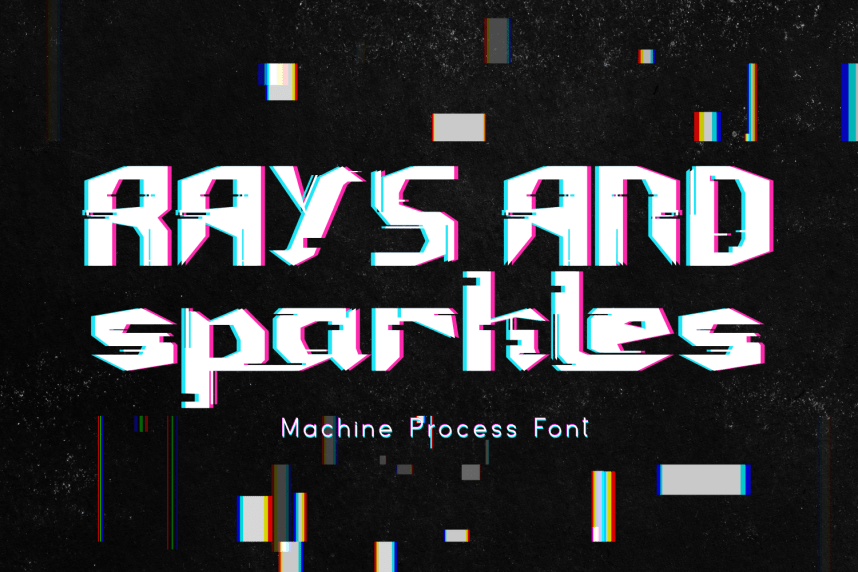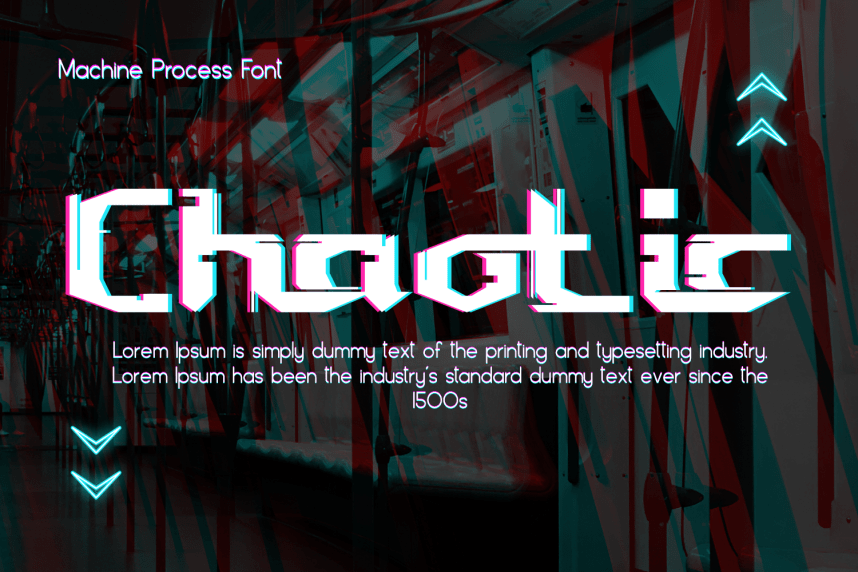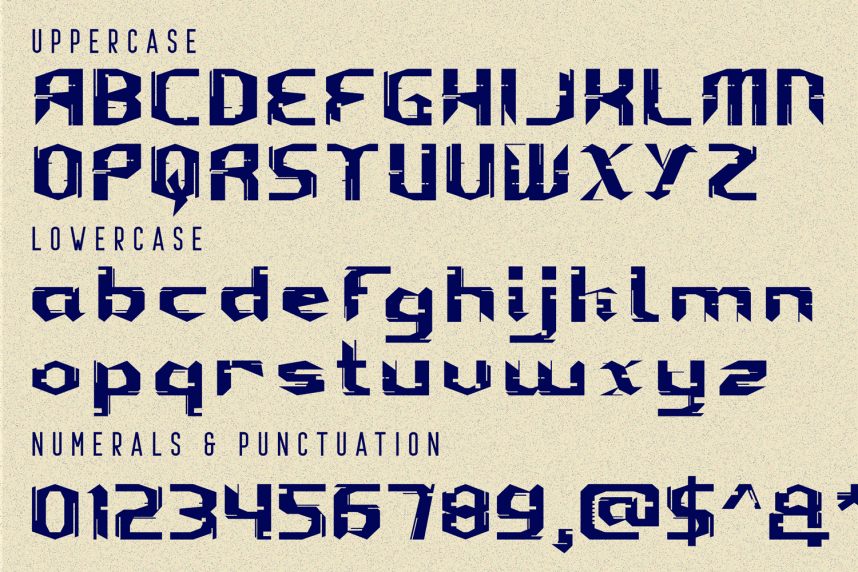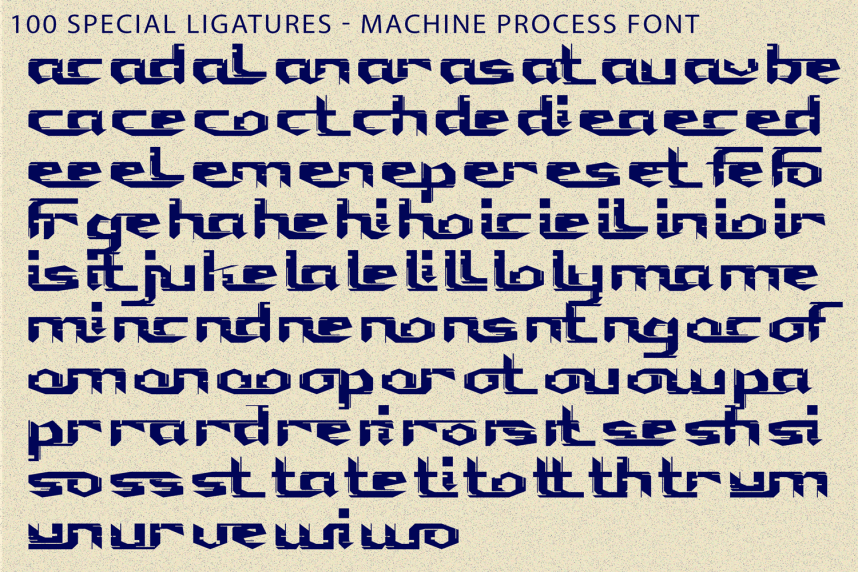
Machine Process – Glitch Font – The Ultimate Cyberpunk Glitch Font, a cutting-edge futuristic display font designed to propel your creative projects into the next dimension. Strongly inspired by cyberpunk aesthetics and dystopian high-tech interfaces, this font is built to make a bold statement. Machine Process features aggressive, blocky geometric shapes combined with striking, built-in glitch effects. The sharp, sliced letterforms emulate digital distortion and mechanical precision, while the integrated chromatic aberration (cyan and magenta anaglyph offset) delivers a raw, screen-tearing illusion right out of the box.
🔤Features:
- Uppercase & Lowercase Letters
- Around 100 Special Ligatures & Alternates
- Numerals & Punctuation
- Accented Characters for multilingual support
🔤About 100 ligatures combined with Stylistic Alternates Font:
ac ad al an ar as at au av be ca ce ch co ct de di ea ec ed ee el em en ep er es et fe fo fr ge ha he hi ho ie ic il in io ir is it ju ke la le li ll lo ly ma me mi nc nd ne ng no nt ns oc of om on oo op or ot ou ow pa pr ra rd re ri ro rs rt se sh si so ss st ta te th ti to tr tt um un ur ve wi wo